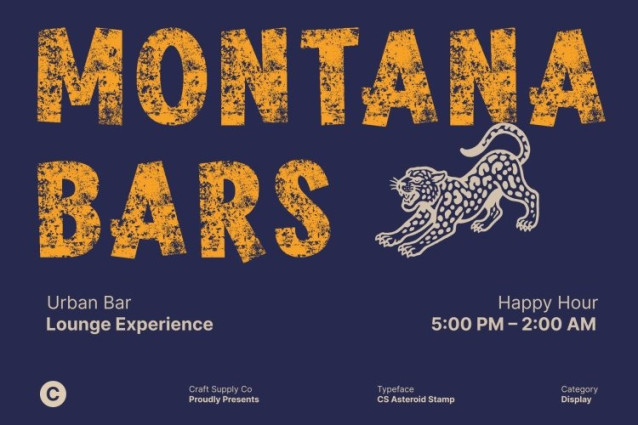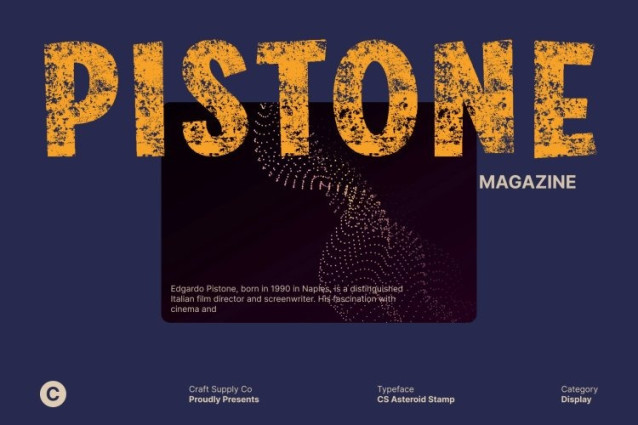
CS Asteroid Stamp Font
CS Asteroid Stamp Font This is a modern sans serif font that combines bold geometric construction with playful asymmetric details. Its thick strokes and rounded terminals create a strong visual presence, while subtle quirks in the letterforms introduce a sense of fun and personality that keeps the design lively and engaging.
Dynamic Counter Spaces for Clear Expression
Designed with generous and well-balanced counter spaces, this font ensures excellent readability while maintaining an energetic rhythm. These open forms enhance clarity at any size, allowing the font to perform confidently in both display and branding applications without losing its playful edge.
Friendly Professionalism with Stamp Texture
The stamp effect adds a layer of vintage character and artistic texture to the clean geometric base. Slight imperfections, ink textures, and worn details give the font a handcrafted, retro feel softening its modern structure and creating a warm, approachable tone that feels both professional and expressive.
Versatile Impact for Modern Creative Brands
Perfect for branding, headlines, packaging, posters, and creative campaigns, adapts effortlessly across digital and print media. Its combination of bold geometry, playful character, and vintage stamp texture makes it ideal for youth-oriented brands, creative studios, entertainment projects, and designs that want to feel confident, fun, and memorable.